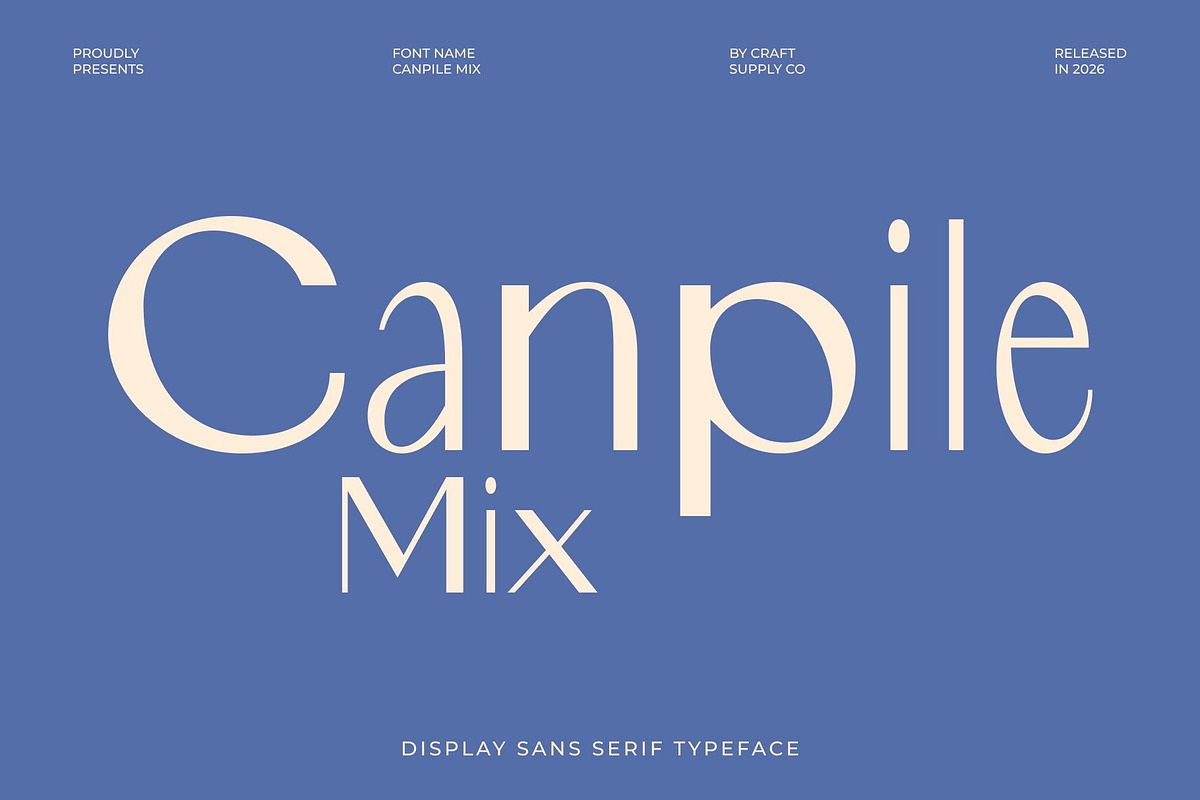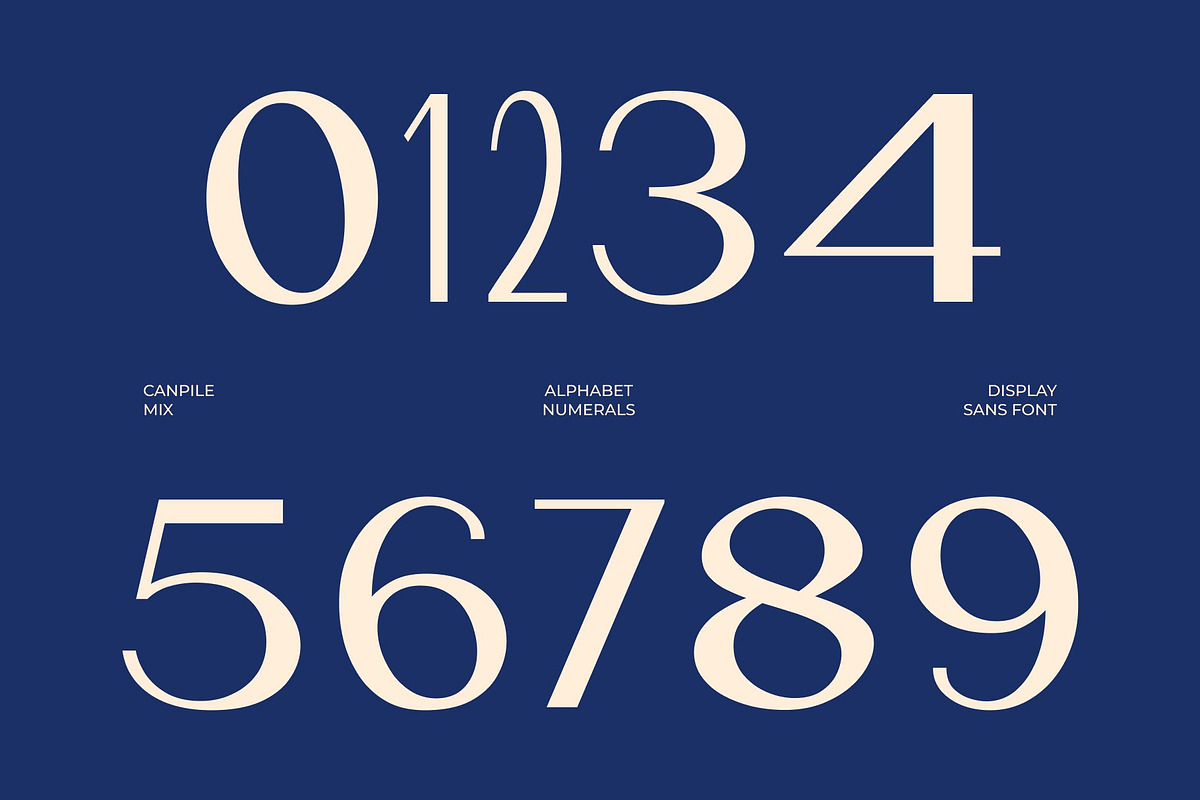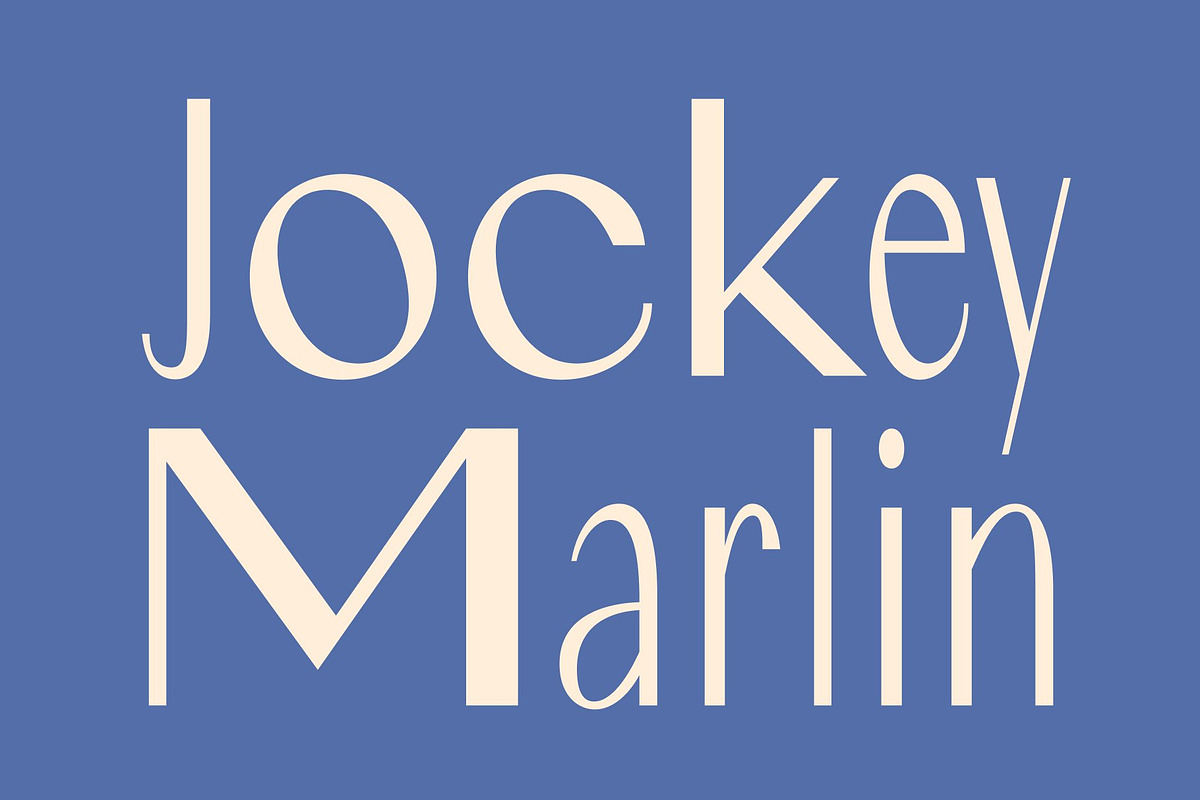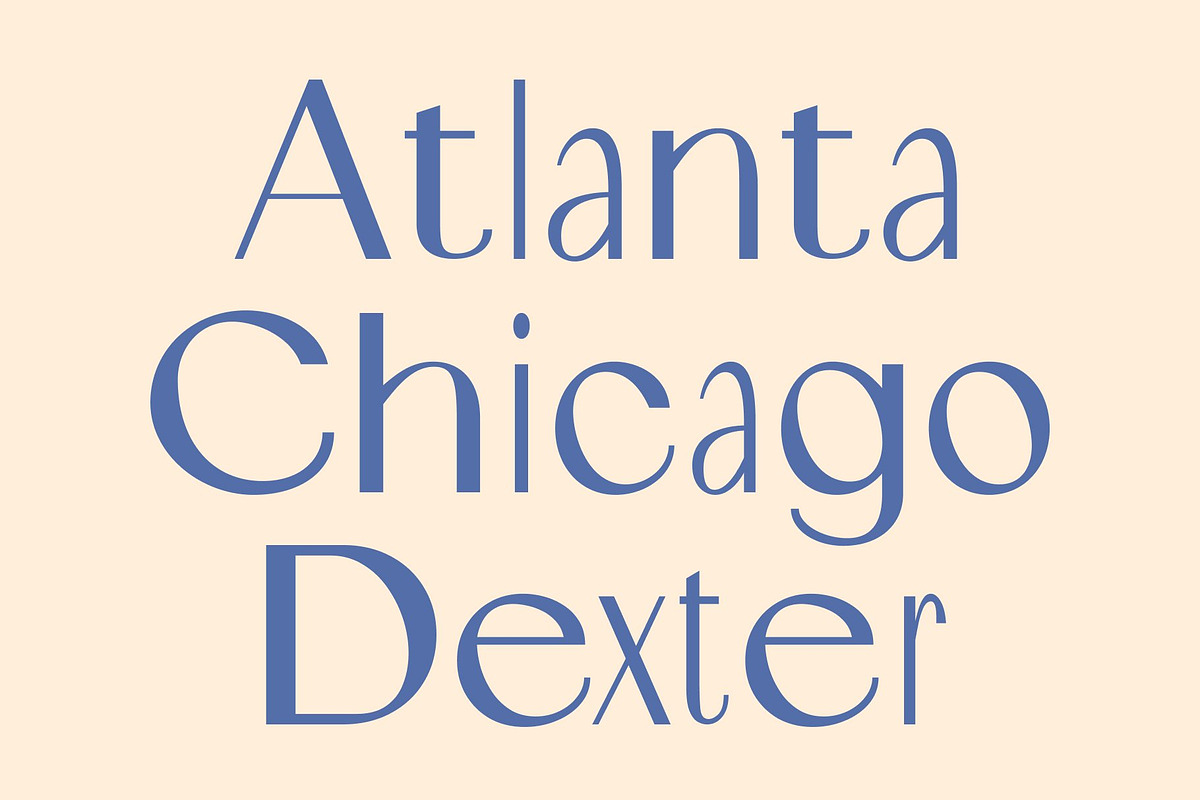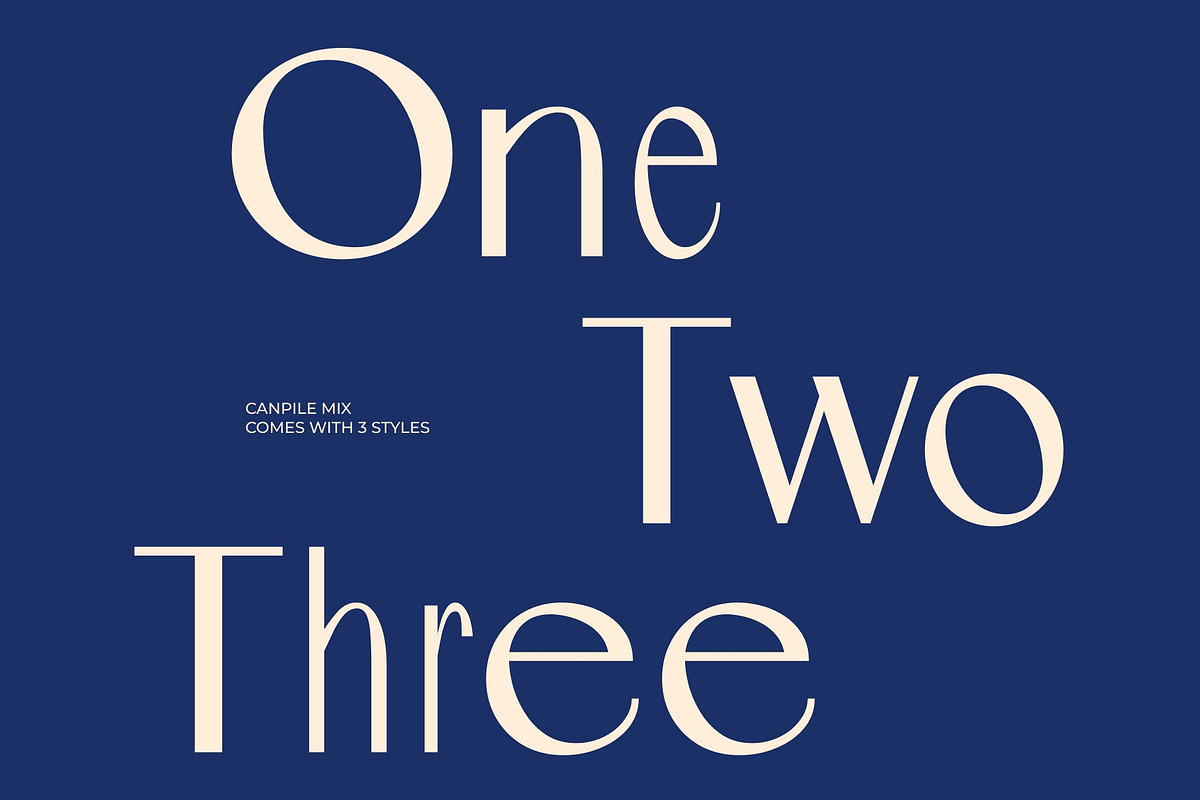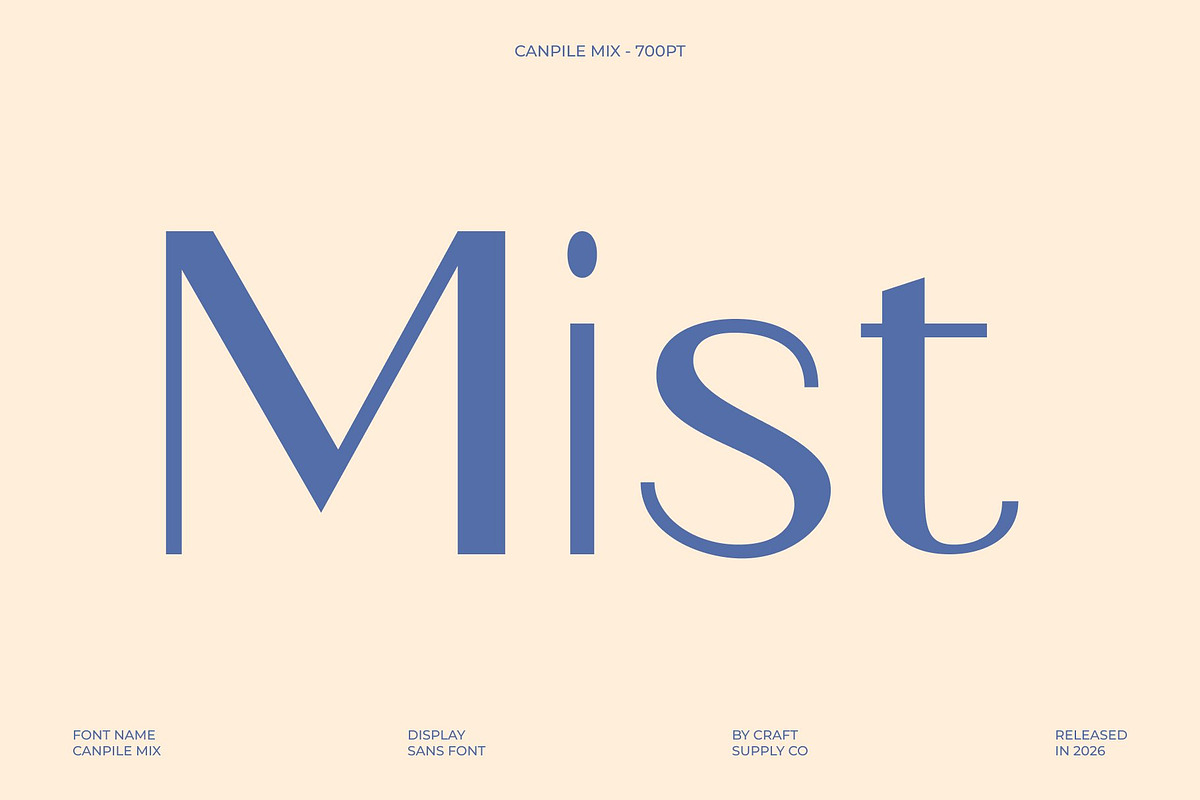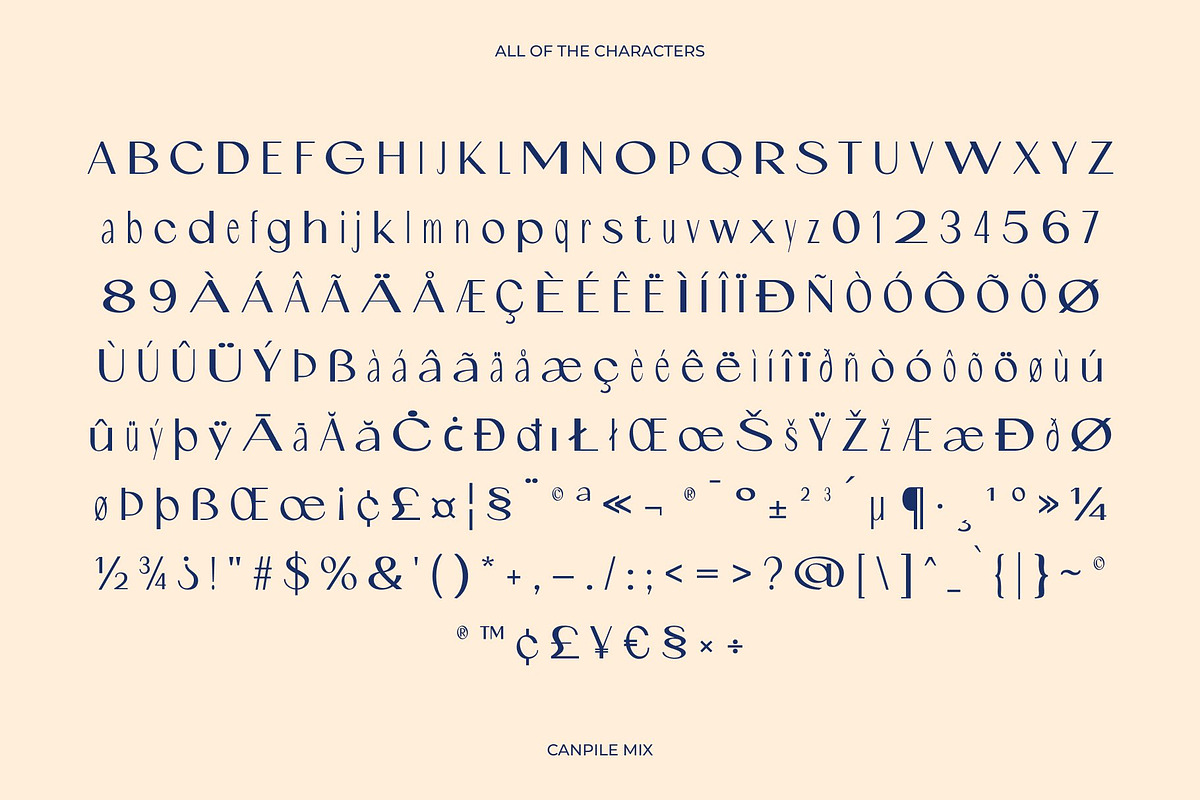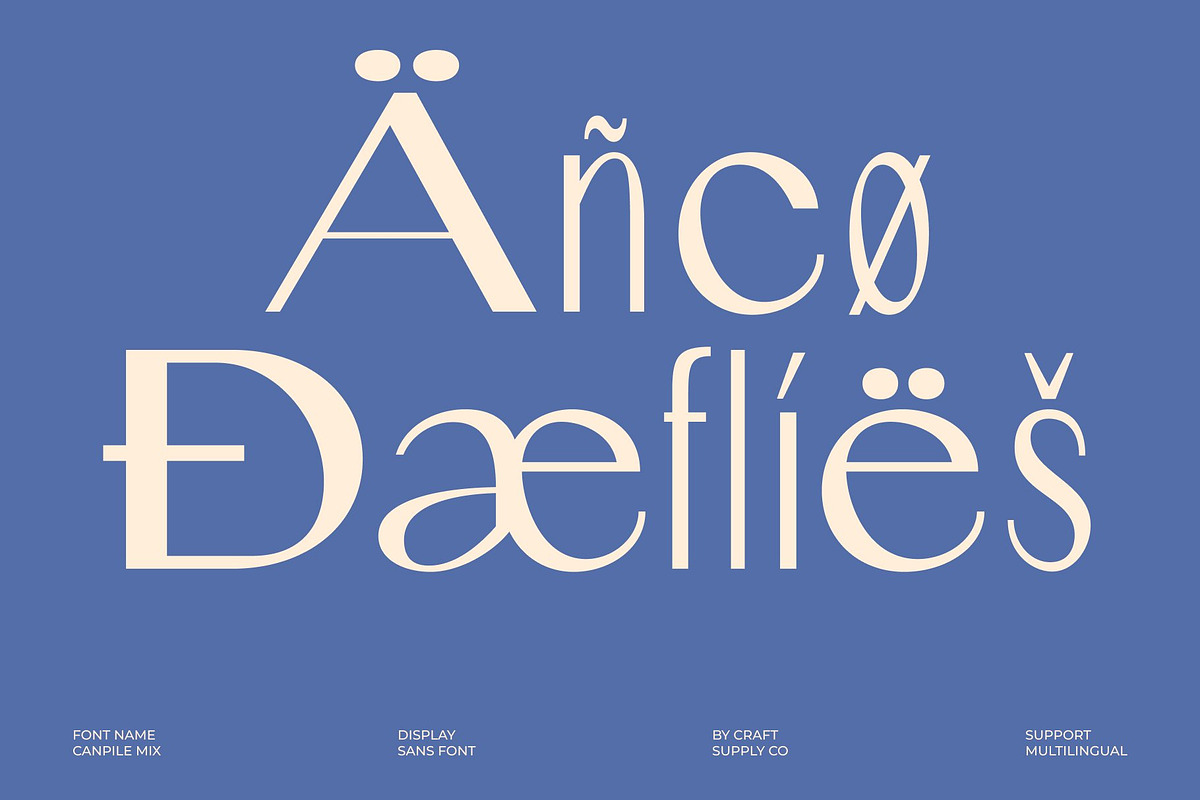
Canpile Mix
Canpile Mix – Modern Sans Serif: Contemporary Simplicity with Editorial Sophistication
Modern Sans Serif with Mixed Style Character This is a modern sans serif font designed to bring clarity, elegance, and contemporary style into every composition. Built with sleek structures and clean proportions, this typeface introduces a distinctive mixed-style concept that adds visual rhythm and personality. It transforms minimalist typography into a refined design element that feels modern, stylish, and highly versatile.
A Harmonious Blend of Bold and Regular Letterforms The defining character of lies in its creative fusion of bold and regular styles. This thoughtful combination creates subtle contrast and a balanced typographic hierarchy, making layouts feel dynamic without losing simplicity. The interplay between weights enhances readability while giving headlines and editorial compositions a more expressive and polished appearance.
Minimalist Precision with Editorial Excellence This font embraces modern simplicity through clean geometry and structured forms. Its balanced construction ensures excellent readability across different sizes and layouts, making it ideal for editorial environments where clarity is essential. The font delivers a sophisticated visual tone that enhances magazines, articles, and professional presentations with a refined contemporary aesthetic.
Versatile for Editorial, Branding, and Modern Design From editorial layouts and branding to websites and promotional materials, this font adapts effortlessly across a wide range of creative applications. Its modern appearance gives designs a professional and stylish character, while its versatility allows it to perform beautifully in both digital and print media.
Canpile Mix One
Canpile Mix Two
Canpile Mix Three